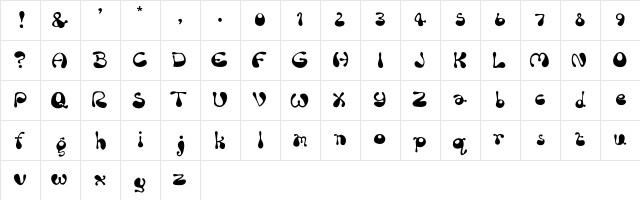
Rum Bubber Regular
Design Context for Rum Bubber
Rum Bubber is a composed and adaptable typeface that performs quietly and consistently across a wide range of design contexts.